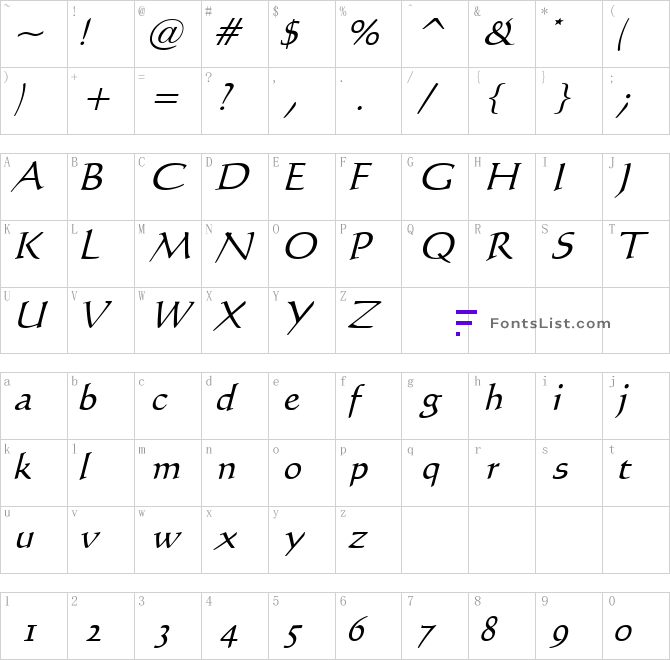
- Font Name:Calli 109
Calli-109-Italic.ttf is a very beautiful artistic font, Calli-109-Italic.ttf is widely used in the design and printing of various books and pictures,Calli-109-Italic.ttf has a strong visual impact,Calli-109-Italic.ttf is a commonly used font in newspapers, magazines and books, and is used in posters, e-commerce Poster design, store design, logo design, font design and other fields.Calli-109-Italic.